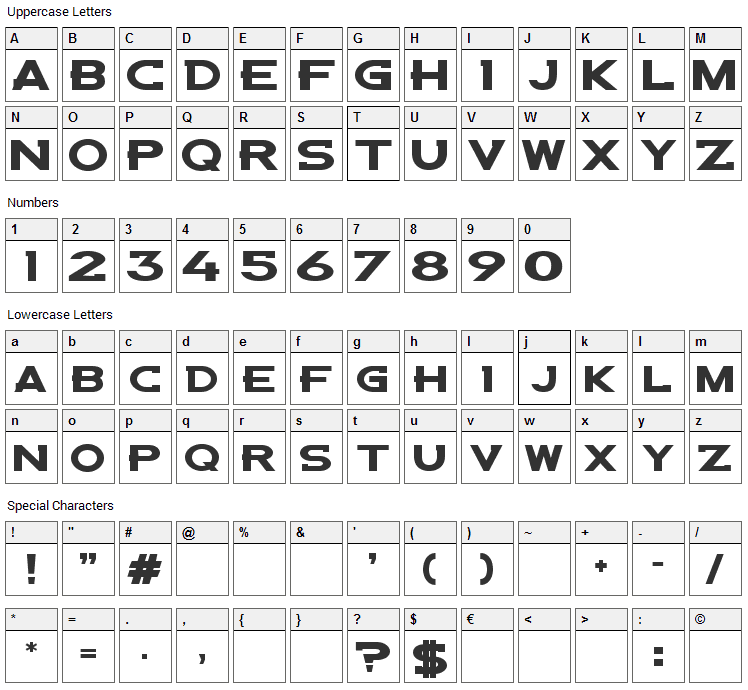
Dragon Ball Z Font Numbers
Dragon ball z font numbers. Download the free font replicating the title logo from the tv show dragon ball z and many more at the original famous fonts. Dragonball z font character map. Afterwards youll be taken to a page where you can see your name written in dragon ball z font style. Basic latin 56 latin 1 supplement 1.
View all styles by ody164. V20 more fonts textures and textcraft pro option for extra large font sizes. Designed by ben palmer saiyan comes with three weights and it is available in uppercase letters only. So im planning on doing a lets play for a game called dragon ball xenoverse and i need help with the title fonts for its beta logo dragon ball new project and its finished logo beta logo will be for numbers while the finished logo will be.
V11 added chinese japanese korean hindi arabic greek and cyrillic fonts. Here is a dragonball z font finally one on the web. A fan made font named saiyan was created to imitate the dragon ball z logo. Dragon ball z by.
Made by divide by zero. Dragon ball xenoverse finished logo font 1. Jan 26 2015 at 0610. Dragon ball z is an anime sequel to the dragon ball tv series based on the dragon ball manga written by akira toryama.
After typing in your name and selecting your preferred background hit the dragon ball that says go wait for it to generate the logo. Very smooth almost cartoony and. Dragonball z font contains 53 defined characters and 52 unique glyphs. Create use different styles for each line of text.